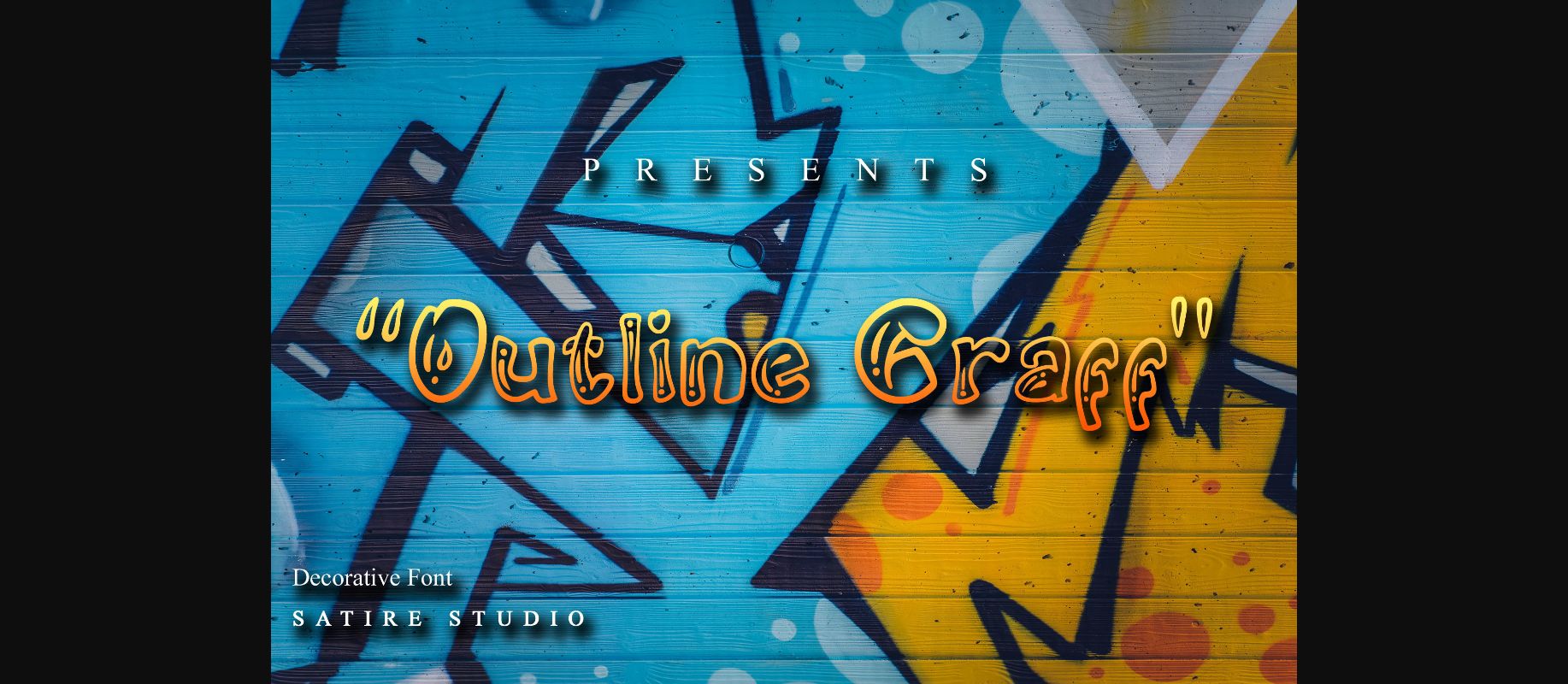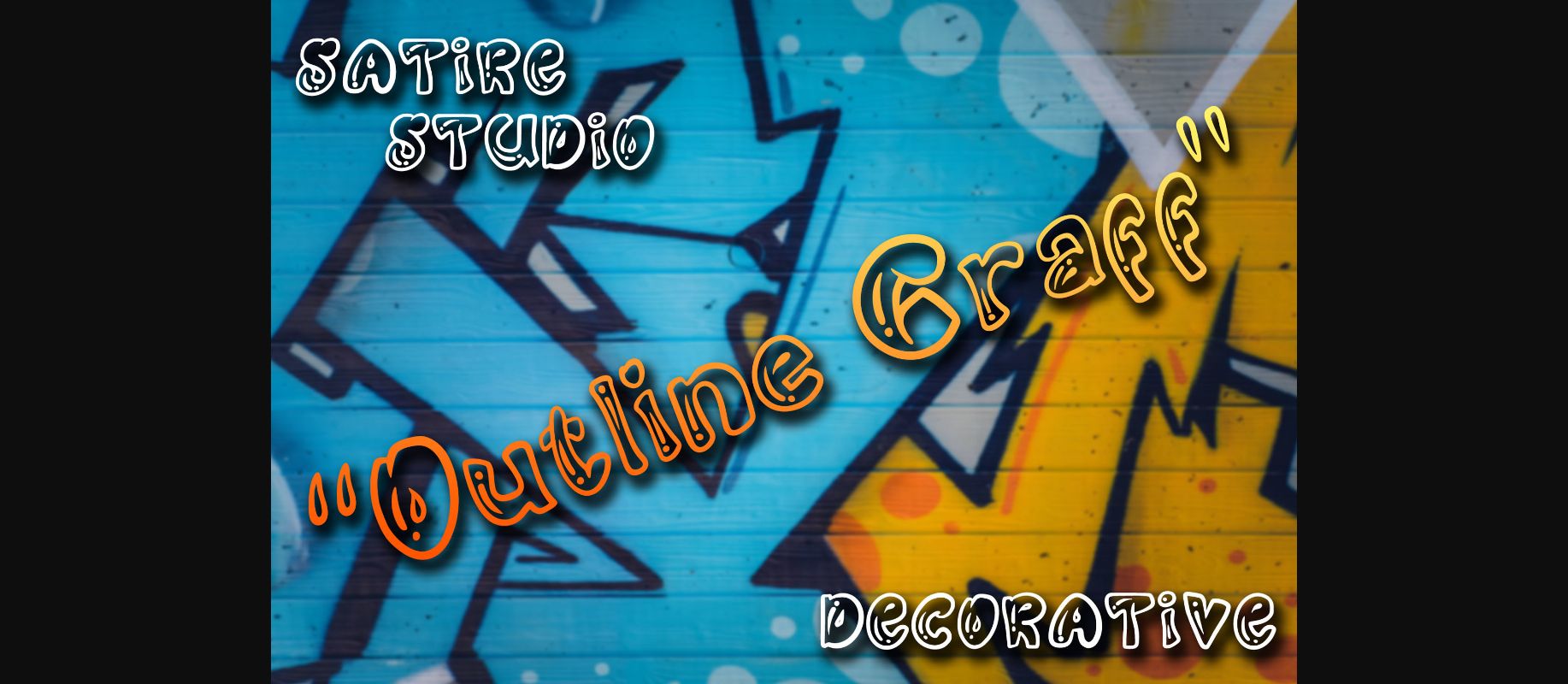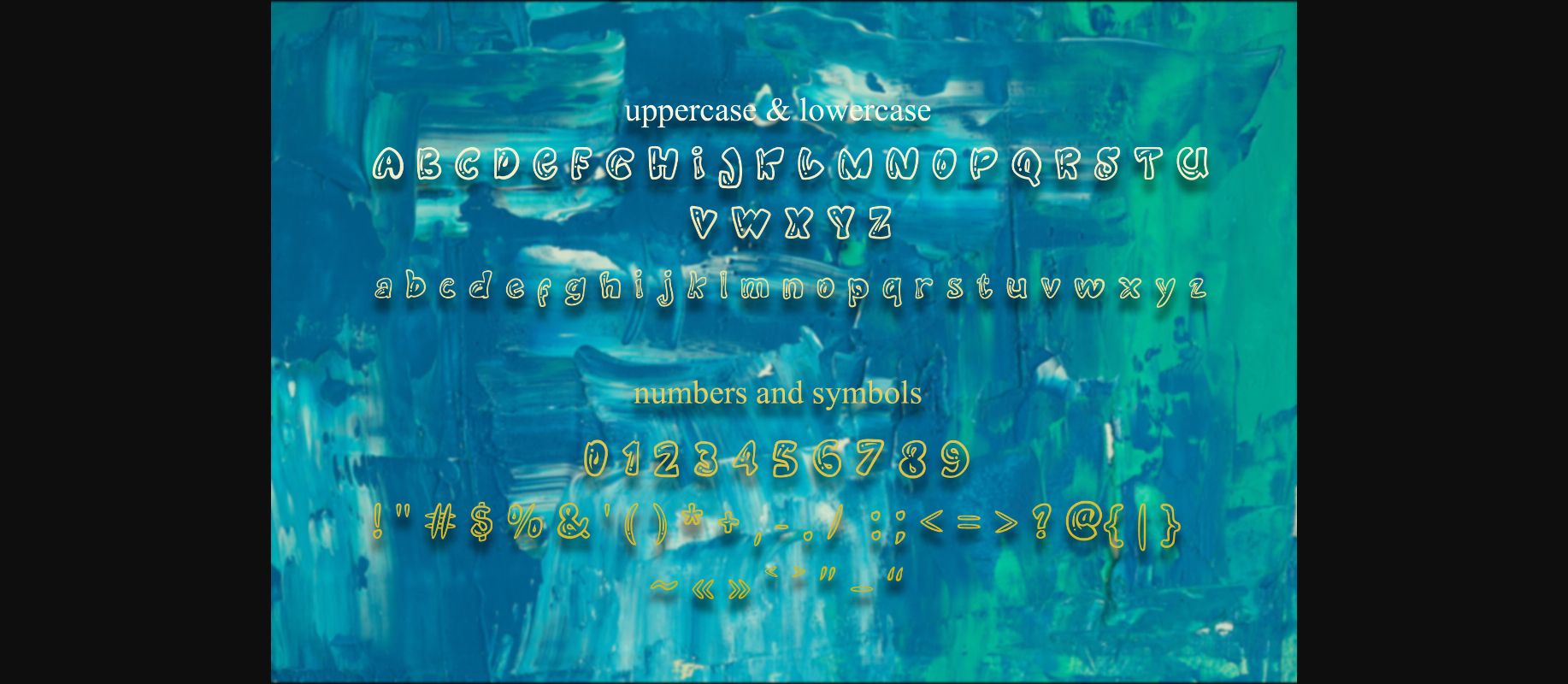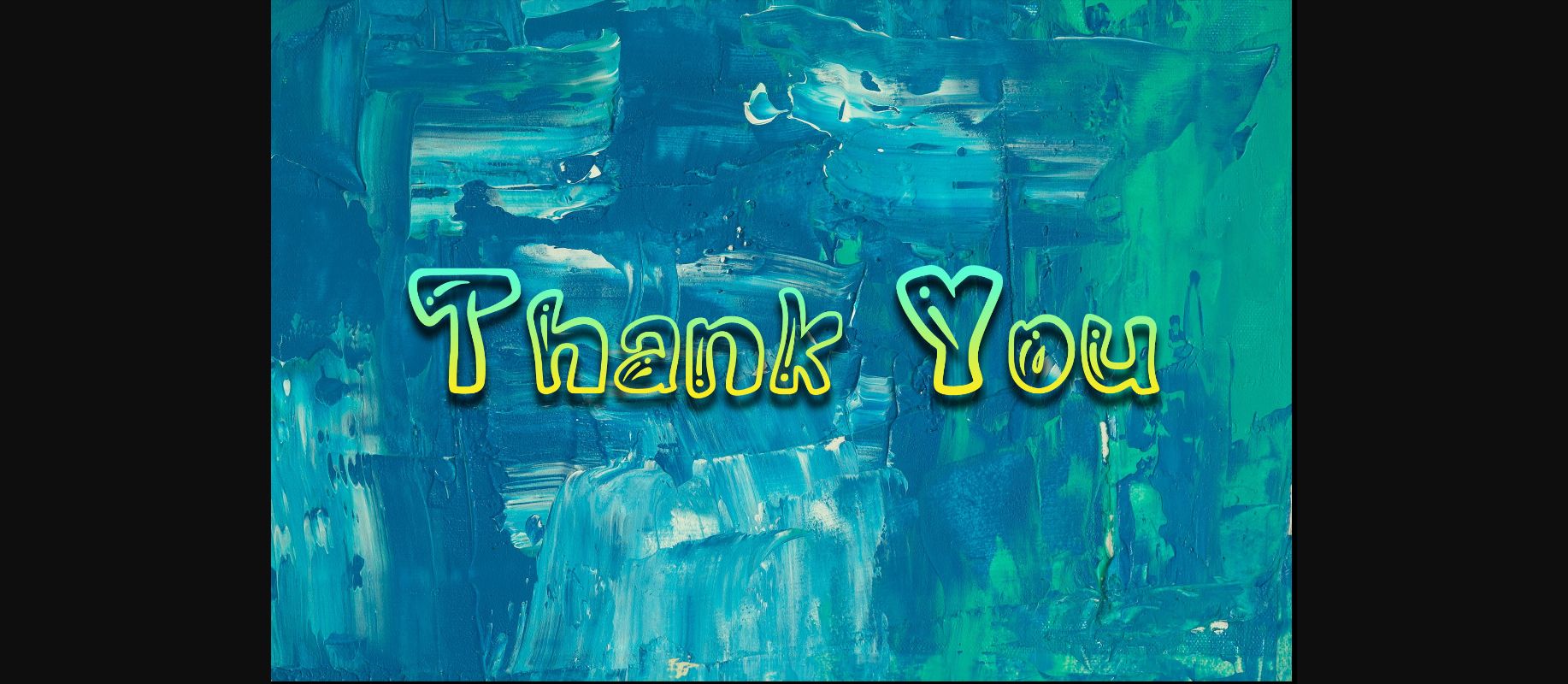
Outline Graff Font
About Outline Graff Font
Outline Graff is a decorative font. It looks beautiful on invitations like greeting cards, branding materials, business cards, quotes, posters, and more!